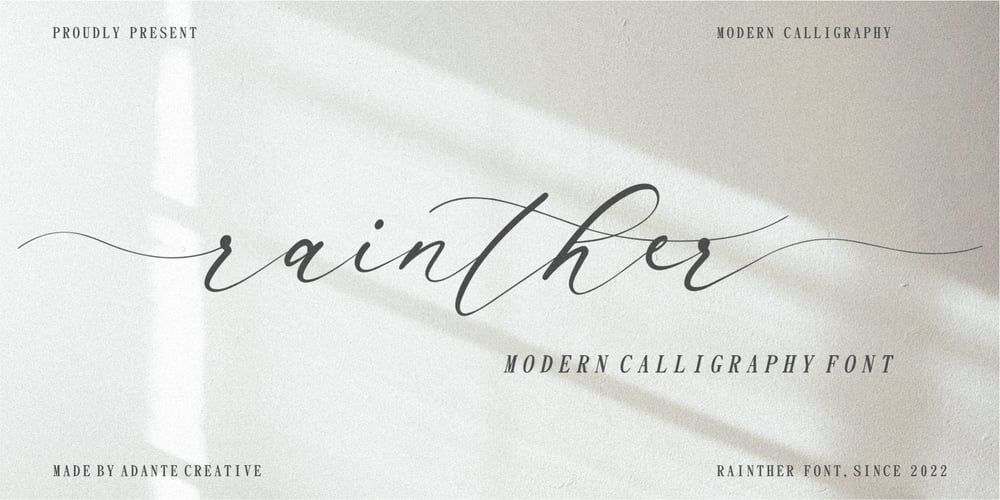
Rainther Font Family was designed by Yanto Suheri and published by Adante Creative. Rainther contains 1 styles and family package options. Introducing by Adante.CreativeProudly Present, Rainther A Modern Calligraphy FontRainther is perfect for product packaging, branding project, magazine, social media, wedding, or just used to express words above the background.Rainther also multilingual support.Enjoy the font, feel free to comment or feedback, send me PM or email.